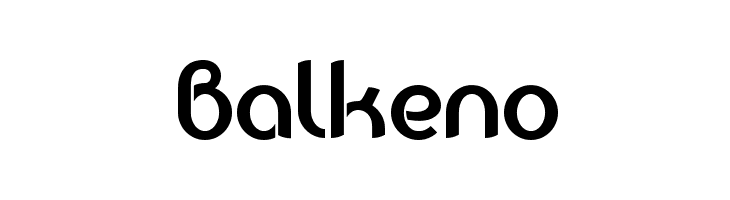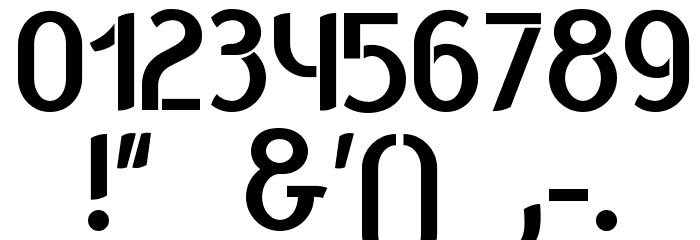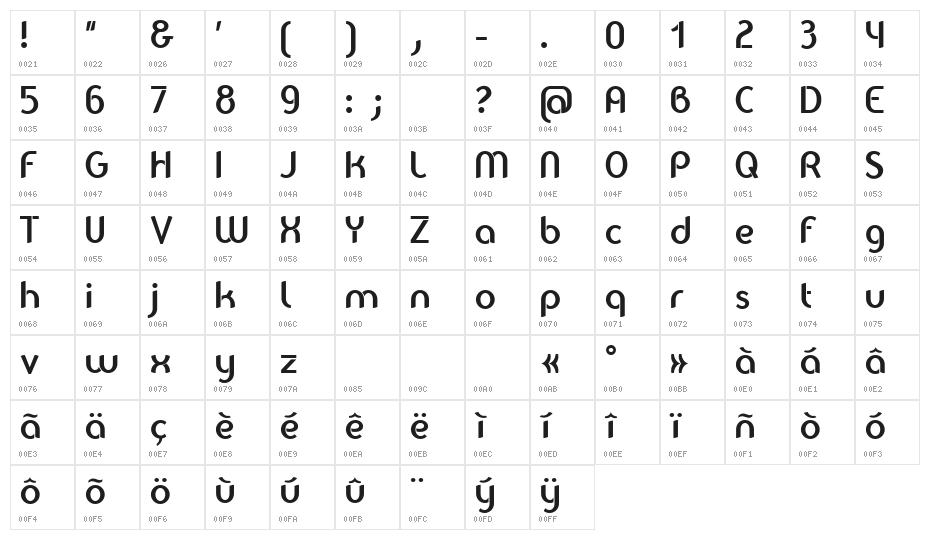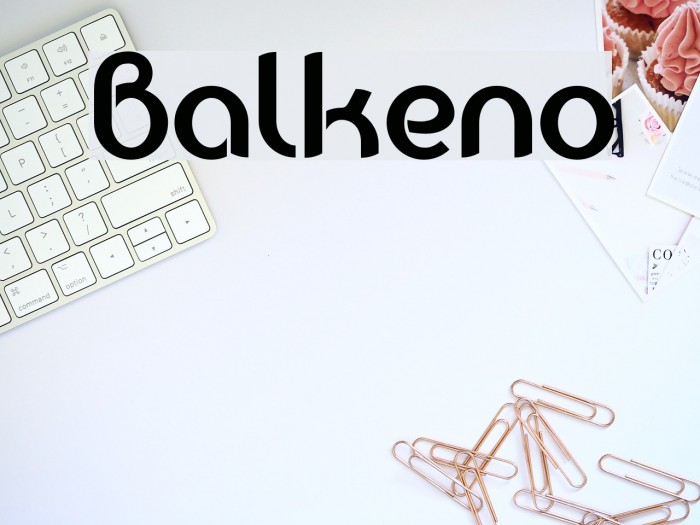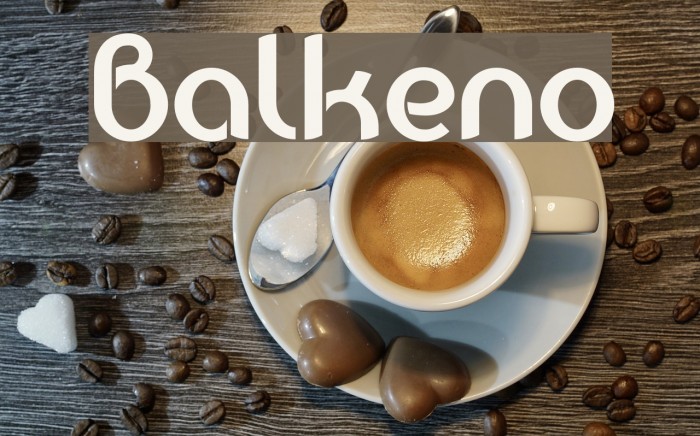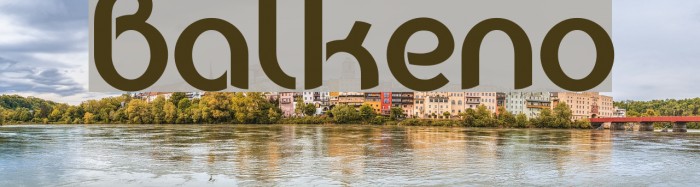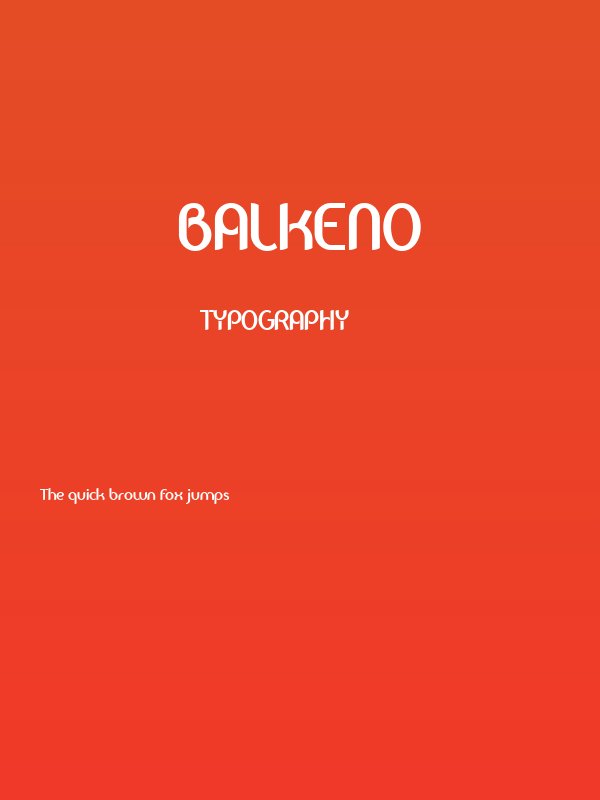
Balkeno Font
Balkeno Description
This font features a modern and sleek design with rounded edges and a geometric structure. The characters are uniform in height, providing a cohesive and balanced appearance. The uppercase letters are bold and prominent, while the lowercase letters maintain a consistent style with slightly softer curves. The numerals are distinct and easy to read, complementing the overall aesthetic. Special characters are designed with the same attention to detail, ensuring they blend seamlessly with the rest of the typeface. This font's clean lines and contemporary feel make it versatile for various design applications.